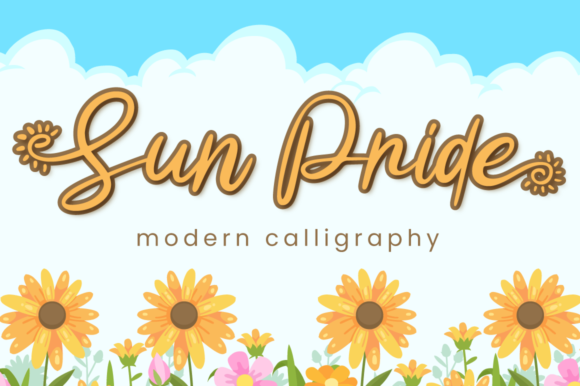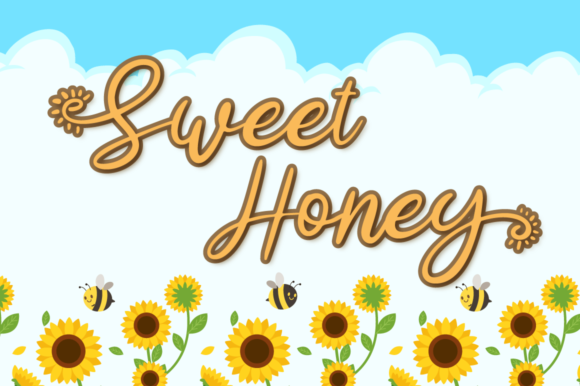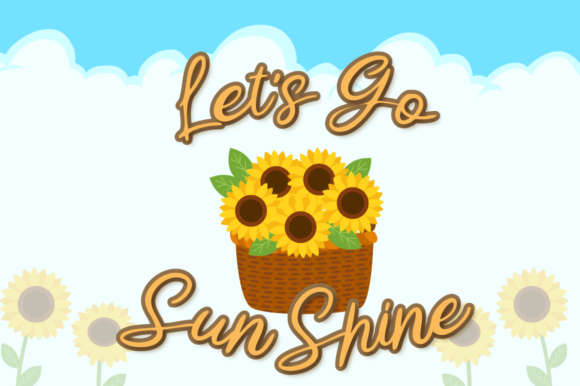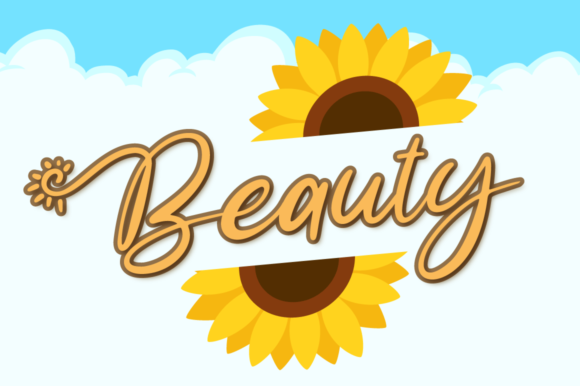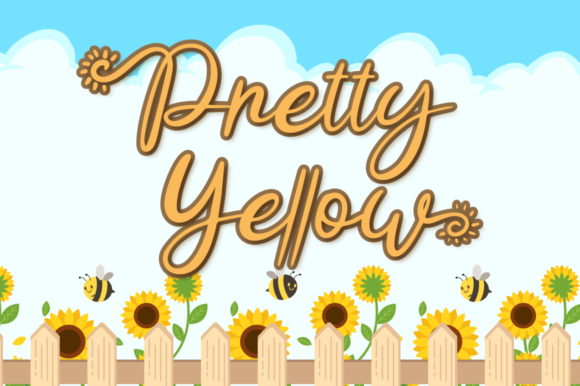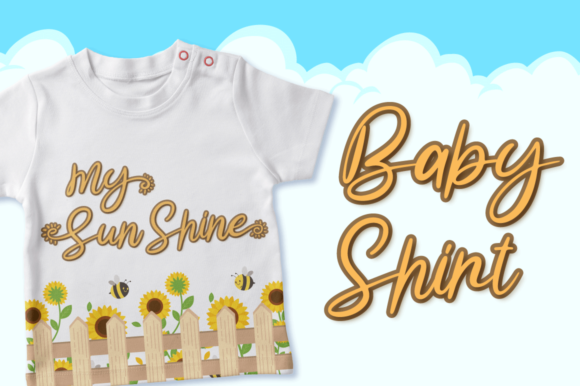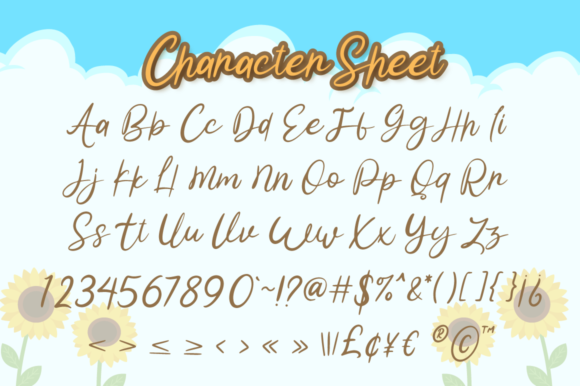
Sun Pride Font
Sun Pride embodies fun, quirkiness and authenticity. This enchanting handwritten font will turn any creative idea into a true standout. Get creative with its unique style and use it to brighten up your summer crafting projects!